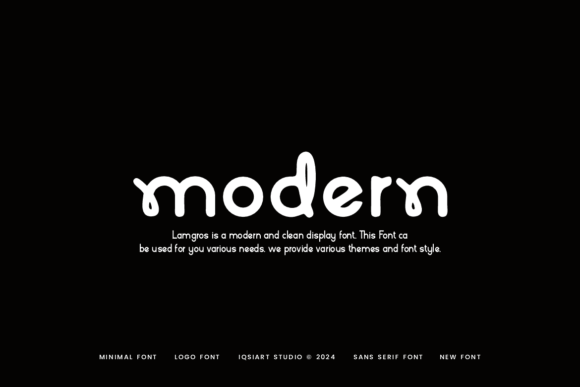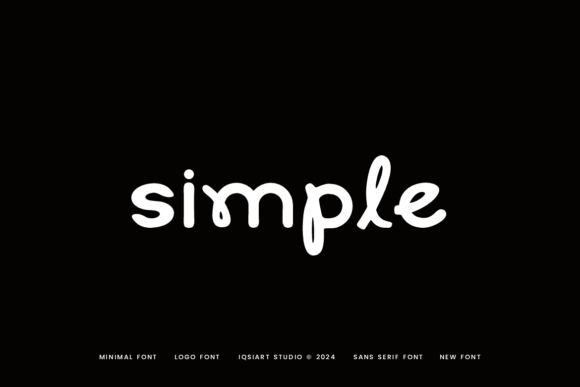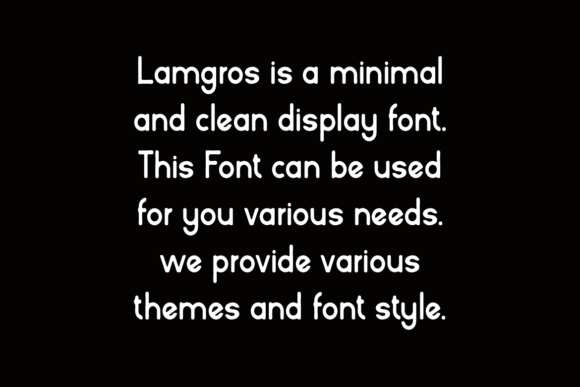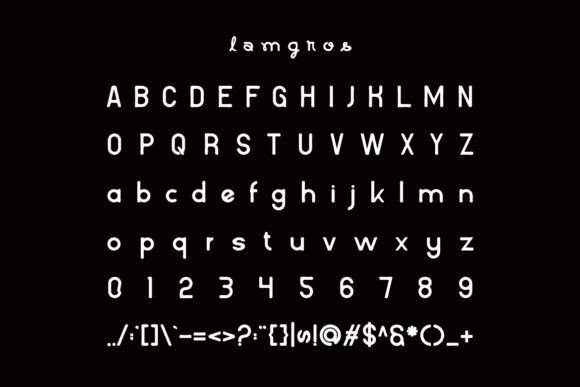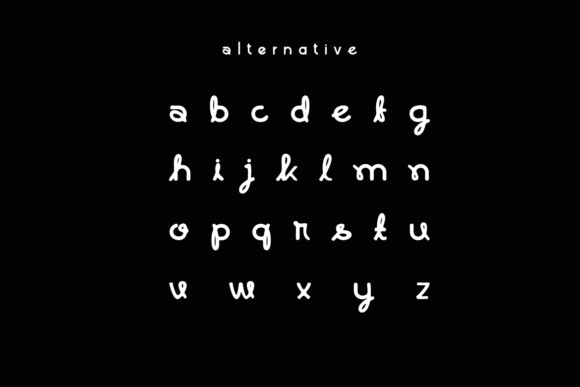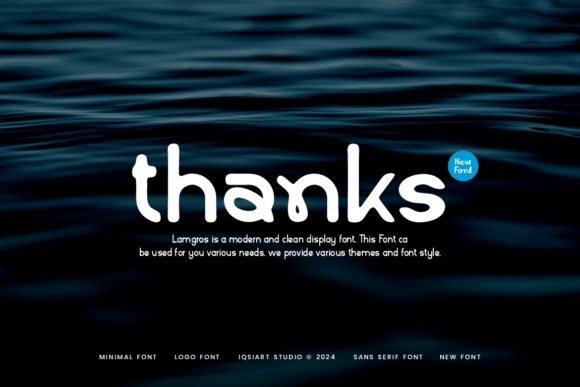
Introduction to Lamgros Font
There’s something magical about stumbling upon the perfect design element for a creative project. You’re brainstorming ideas, scrolling through design resources, and suddenly, a font catches your eye. For designers, this moment is a game-changer. It can elevate the entire project and give it a unique touch. This is exactly what happened when I discovered the Lamgros Font.
This beautiful, handwritten font is more than just a pretty face. With its clean, thin lines and minimal design, it exudes a modern and relaxed vibe. Whether you’re working on a free download project or a high-quality publication, the Lamgros Font is sure to impress. Its transparent background allows it to seamlessly blend with any design, making it an invaluable resource for designers.
Key Features of Lamgros Font
- High-quality font with a transparent background, making it perfect for creative projects that require a clean and modern look.
- Includes a wide range of characters, including uppercase and lowercase letters, numbers, and special characters.
- Designed with a focus on legibility and readability, making it ideal for use in body text and headlines.
- Features a unique and modern design style, with a clean and minimalist aesthetic.
- Available in a single weight, with a font size of up to 72 points and a resolution of 300 DPI.
Honest Review: Lamgros Font
I recently came across the Lamgros Font, and I must say it’s been a game-changer for my creative projects. The high quality of this font is simply impressive, making it a valuable design resource for any project.
One of the standout features of the Lamgros Font is its transparent background, which allows for seamless integration with any background image or color. This is especially useful when working on projects that require a lot of customization.
Here are some of the things that work well with the Lamgros Font:
- ✨ High-quality design: The font is well-crafted and visually appealing.
- ✨ Versatile: The font can be used for a wide range of creative projects, from logos to brochures.
While the Lamgros Font is a great resource, there are a few limitations to be aware of:
- ⚠️ Limited character set: The font only includes a limited set of characters, which may not be suitable for projects that require a wide range of languages.
- ⚠️ Not suitable for small text: The font may not be the best choice for small text, as it can be difficult to read.
Overall, I’m really impressed with the Lamgros Font, and I would definitely recommend it to anyone looking for a high-quality font for their creative project. Just be aware of the limitations mentioned above, and you’ll be all set for a great design experience.
For the most out of Lamgros Font, use it in combination with a transparent background to create a clean and modern look. You can also experiment with different font sizes and styles to add visual interest to your design.
Lamgros Font is suitable for a variety of design projects, including branding materials, marketing materials, and social media graphics. Its high quality and free download make it an excellent design resource for both personal and professional projects.